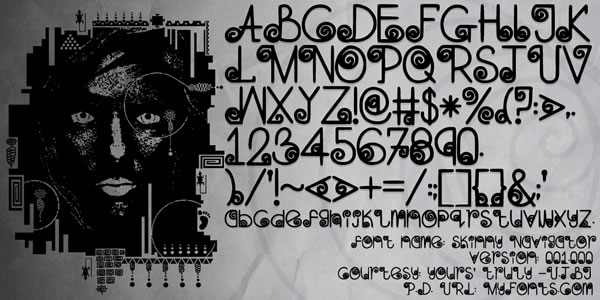
Behold the enchanting realm of Skinny Navigator, a resplendent display font family gracing the digital world, its very existence a testament to the indomitable spirit of creativity. TBJ Ohab, the artistic visionary behind this extraordinary creation, has woven a typographic tapestry of sophistication and allure, beckoning you to embark on a journey of limitless expression.
Unleash your inner storyteller with Skinny Navigator, a font family that breathes life into your words, transforming mundane text into captivating narratives. Its slender lines dance across the page with elegance, while its carefully crafted curves lend a touch of playful charm, inviting readers to immerse themselves in your prose.
From captivating headlines that command attention to logos that exude an air of timeless elegance, Skinny Navigator is your trusted companion in the realm of visual communication. Its versatility knows no bounds, effortlessly adapting to a symphony of design styles. Whether you seek to craft posters that ignite imaginations or book covers that promise worlds unknown, Skinny Navigator stands ready to elevate your creative vision.
In the realm of branding, Skinny Navigator emerges as a potent force, its distinct character adding a touch of exclusivity and refinement to your brand identity. Let your logo, the cornerstone of your brand's visual identity, radiate with the grace and charm of Skinny Navigator, attracting customers like moths to a flame.
Newspapers, with their relentless pursuit of truth and information, find a kindred spirit in Skinny Navigator. Its crisp lines and clear letterforms ensure that every word, every sentence, every story is delivered with unwavering clarity, allowing readers to navigate the complexities of the world with ease.